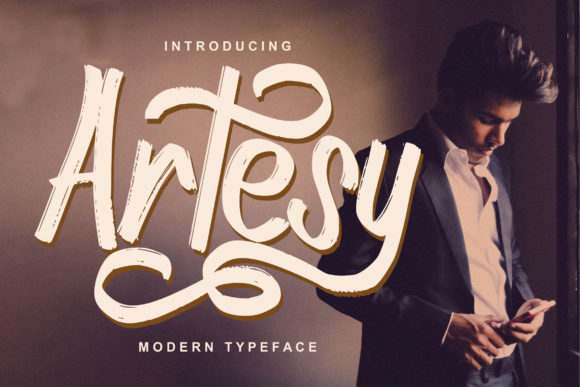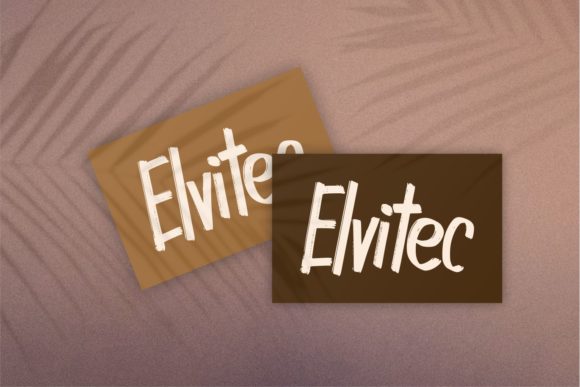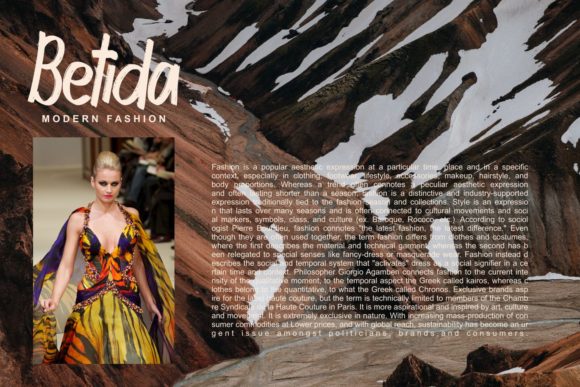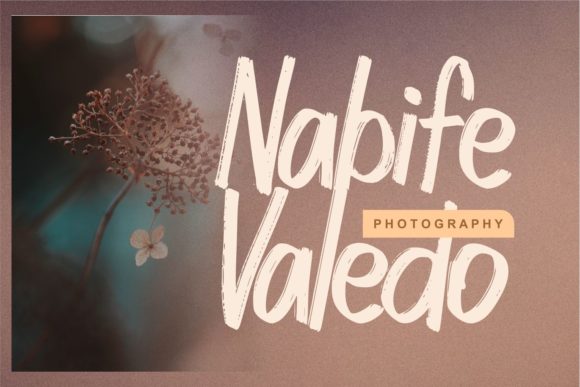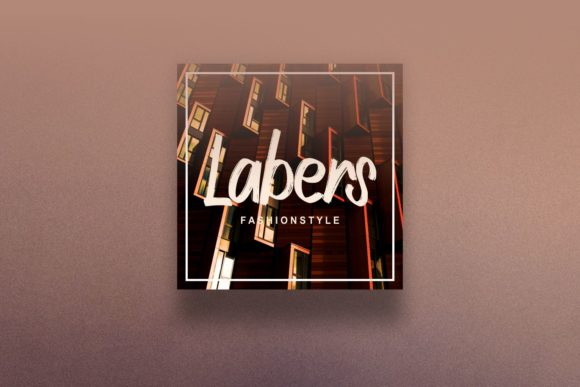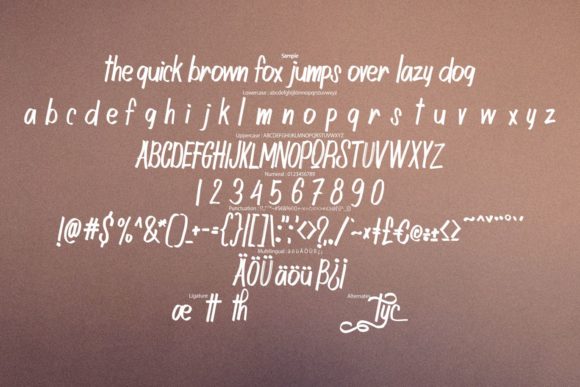
Artesy Font
About Artesy Font
Artesy is a gorgeous handwritten font, designed with the help of a thick, outstanding brush pen. Turn your creative ideas into real pieces of work with this lovely font!